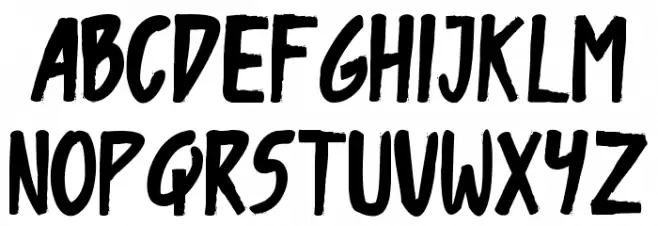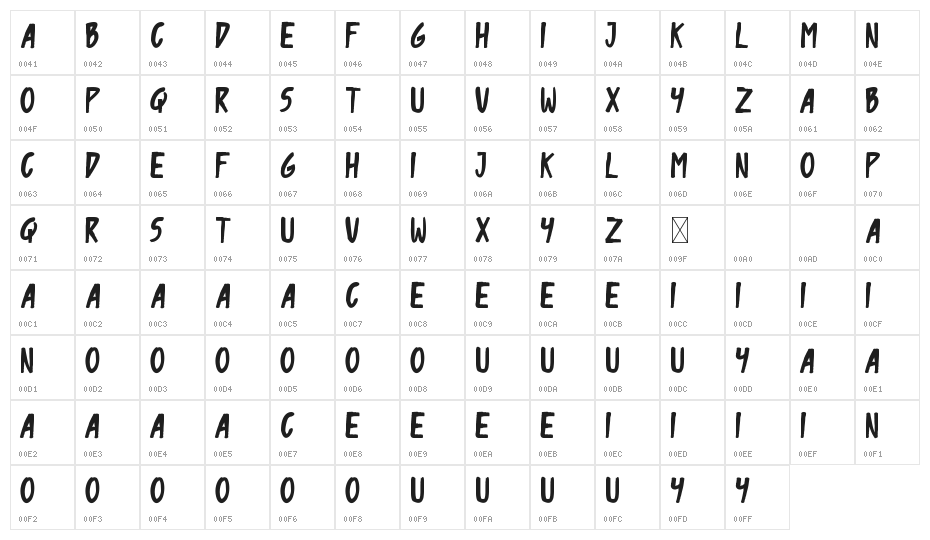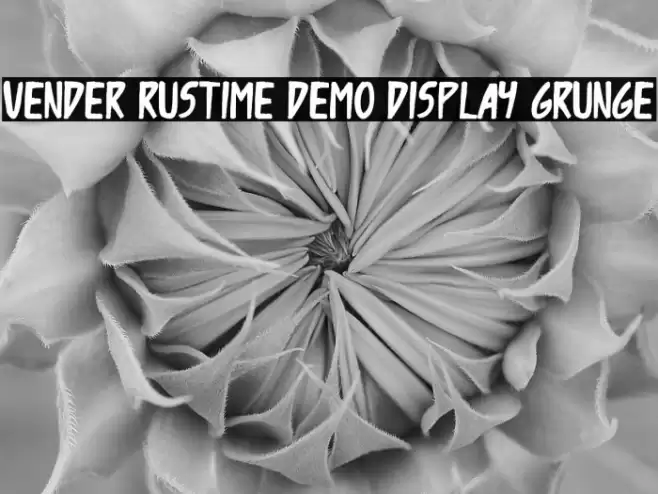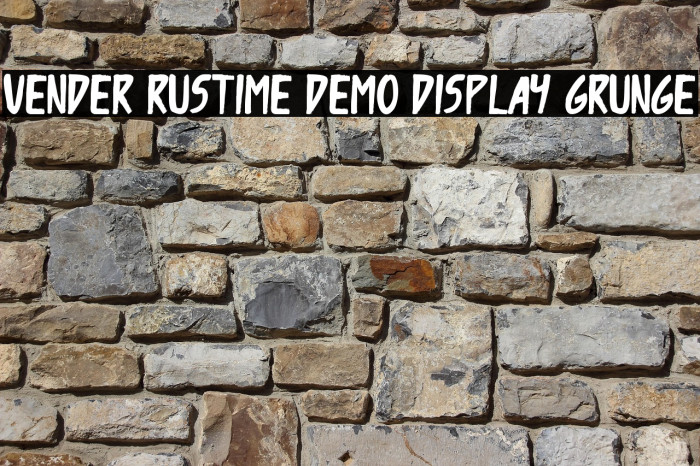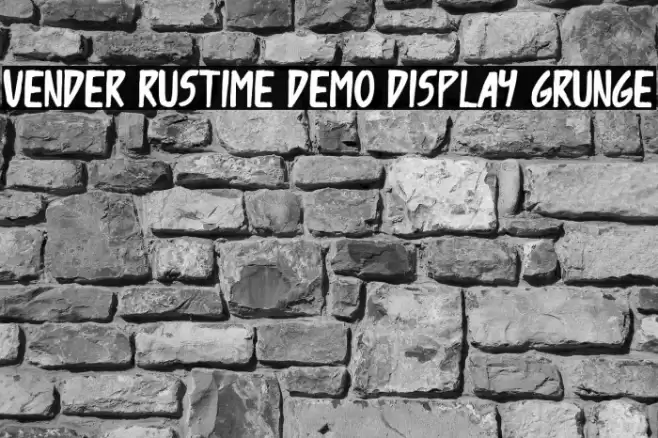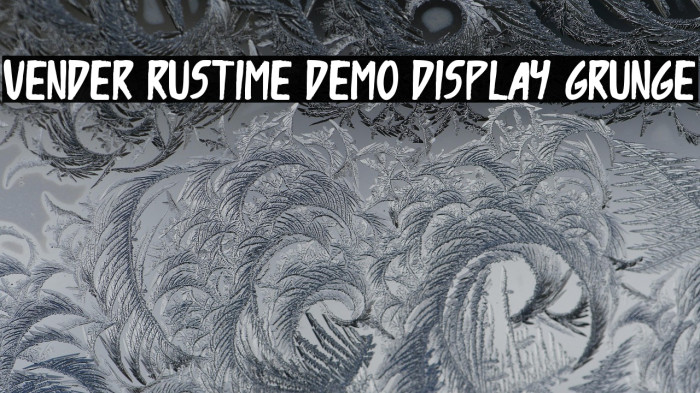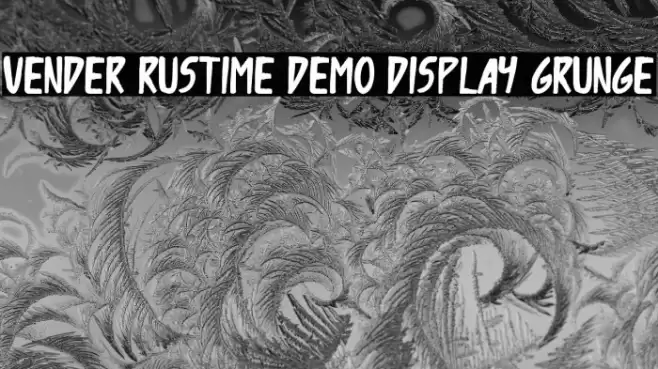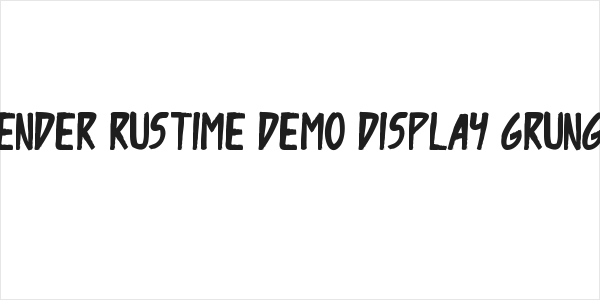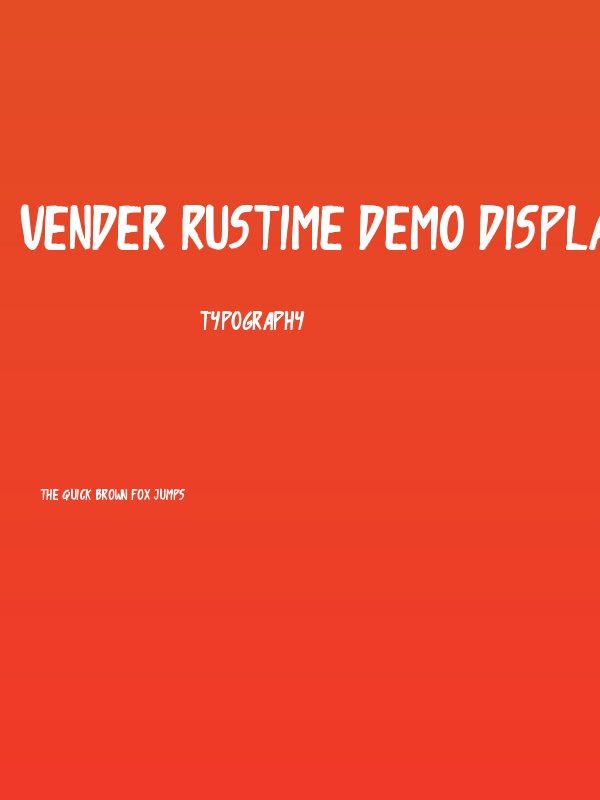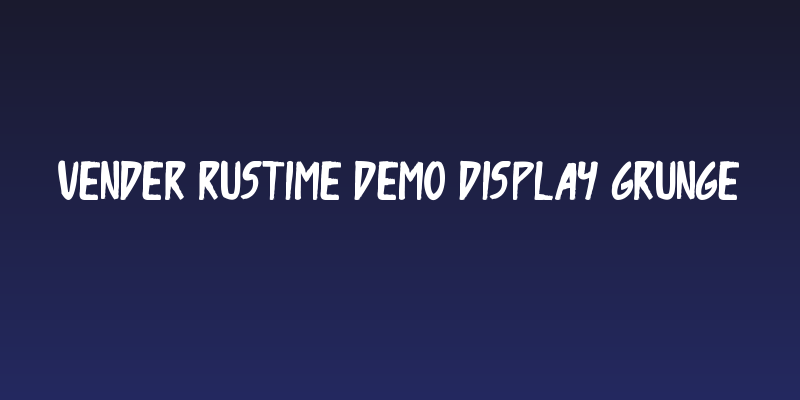
Vender Rustime Demo Display Grunge Font
Vender Rustime Demo Display Grunge Description
This font features a bold and dynamic style with a hand-drawn, grunge aesthetic. The characters are thick and slightly irregular, giving them a raw and energetic feel. The strokes are uneven, adding to the distressed look, which is perfect for projects that require a touch of edginess and creativity. The uppercase letters are prominent and assertive, making them ideal for headlines or titles that need to stand out. The font's overall appearance is both artistic and impactful, capturing attention with its unique and bold presentation.
| Overall Style | Grunge, Artistic |
| Proposed Projects | Ideal for posters, album covers, branding for edgy products, and creative advertising campaigns. |